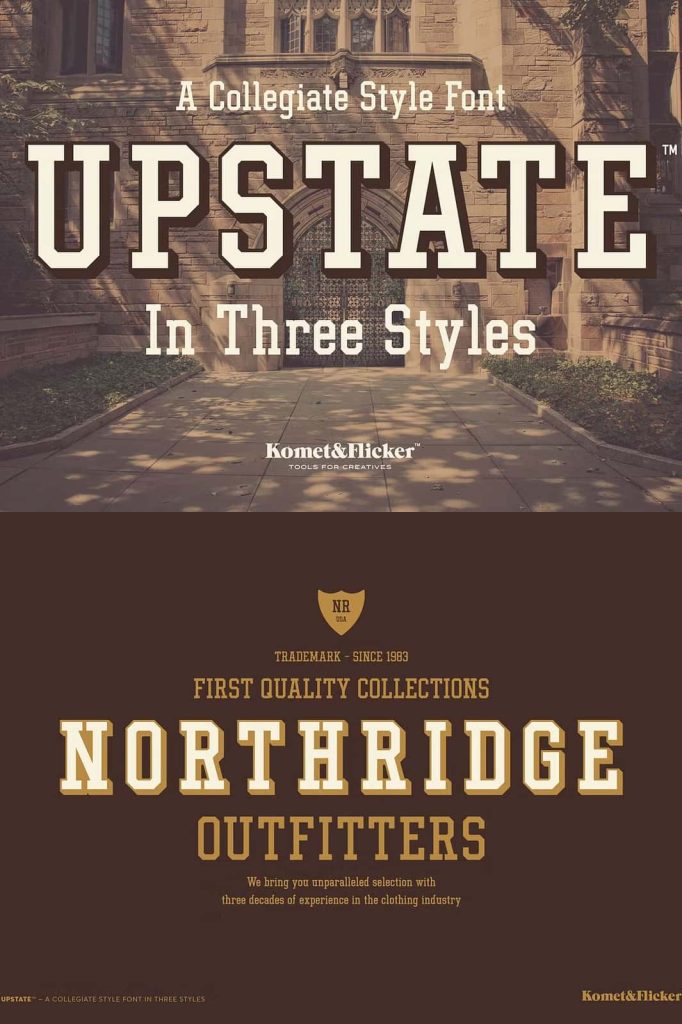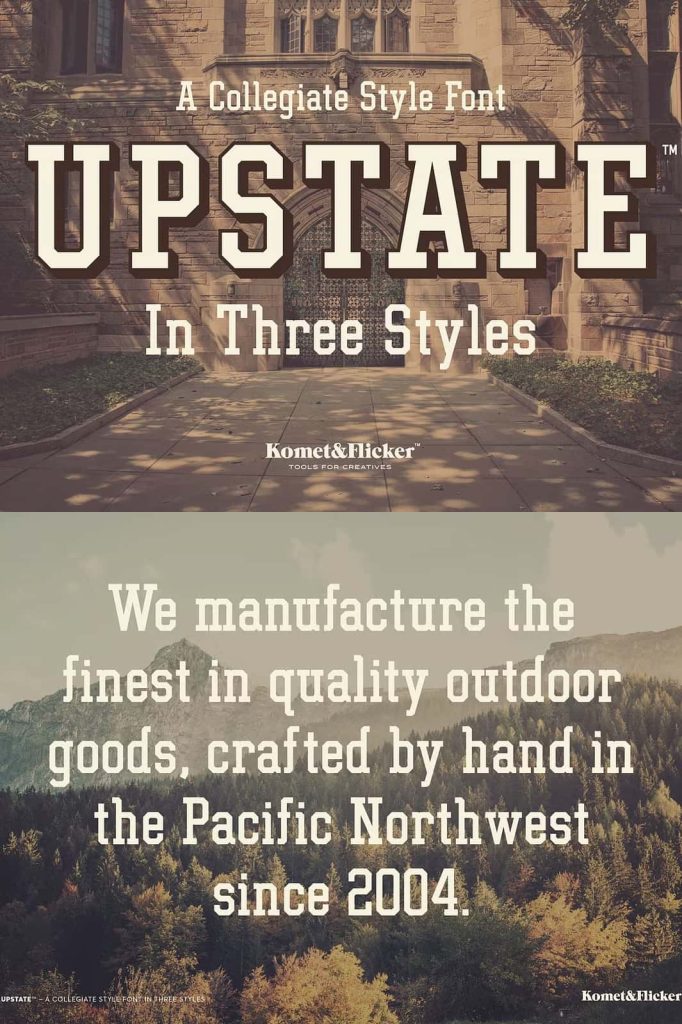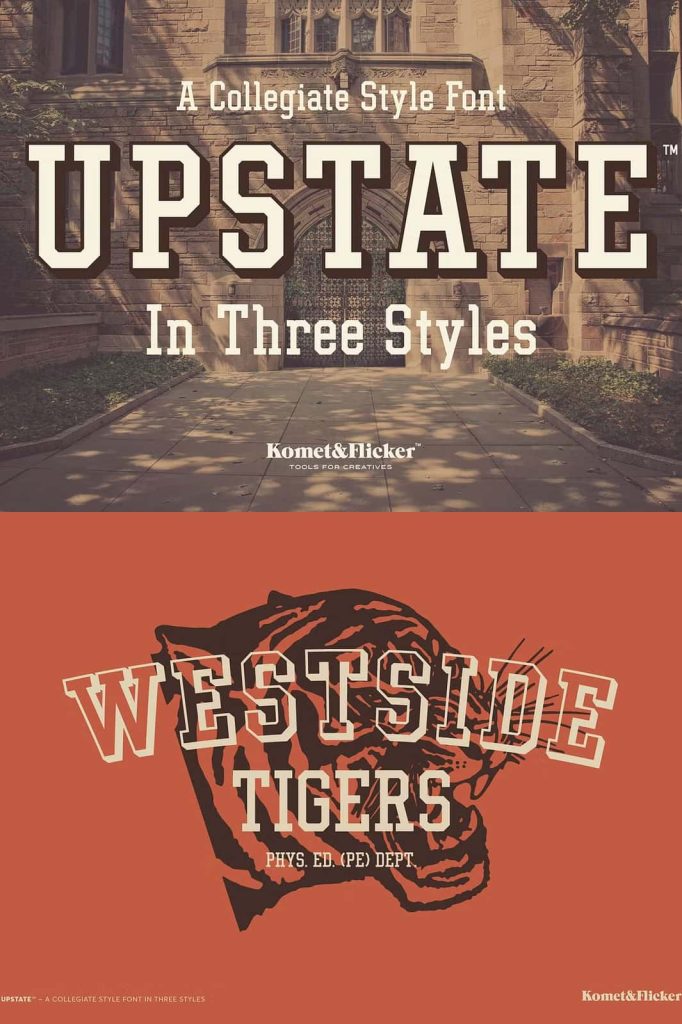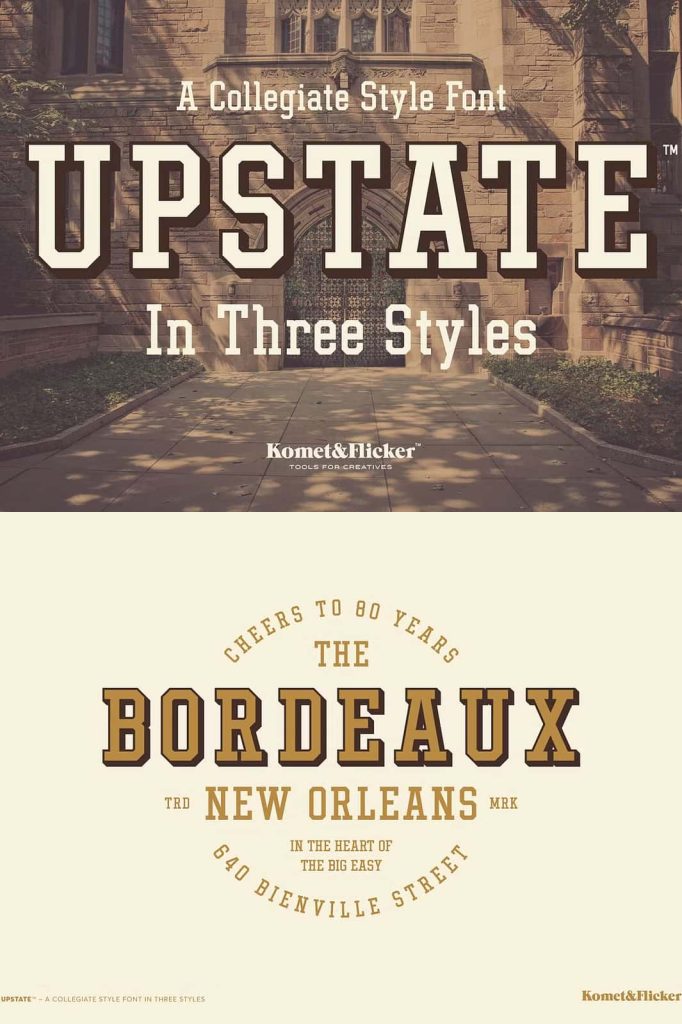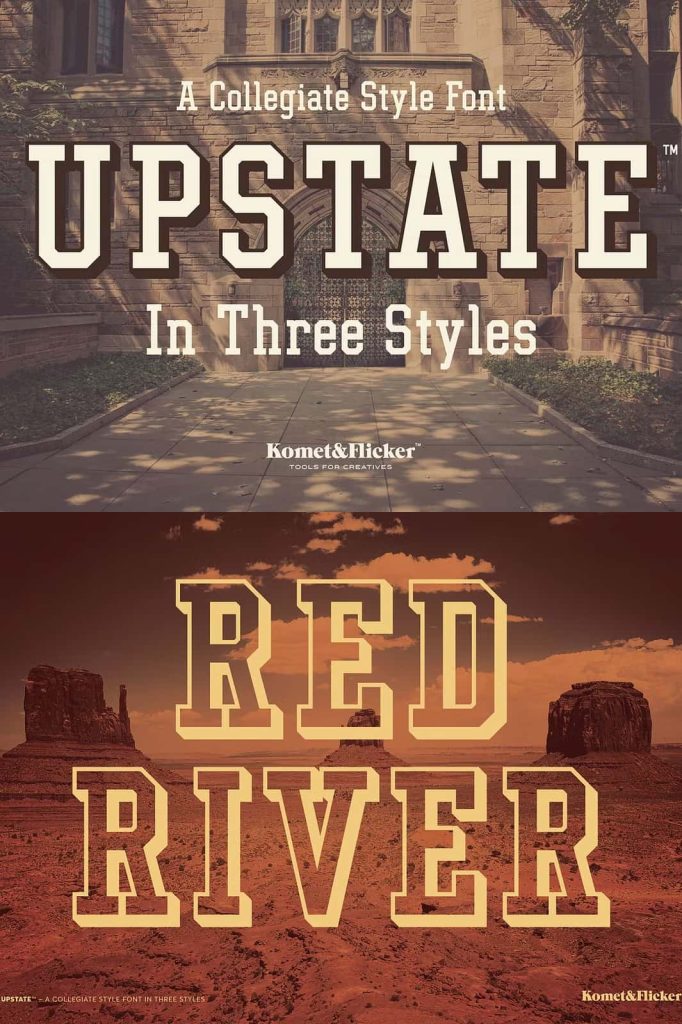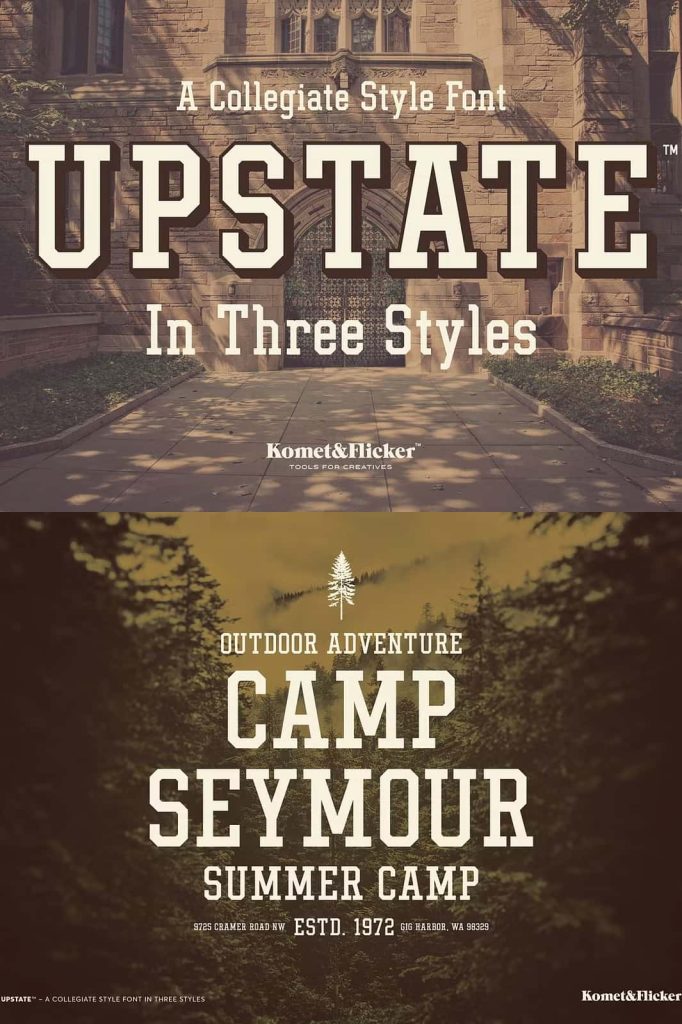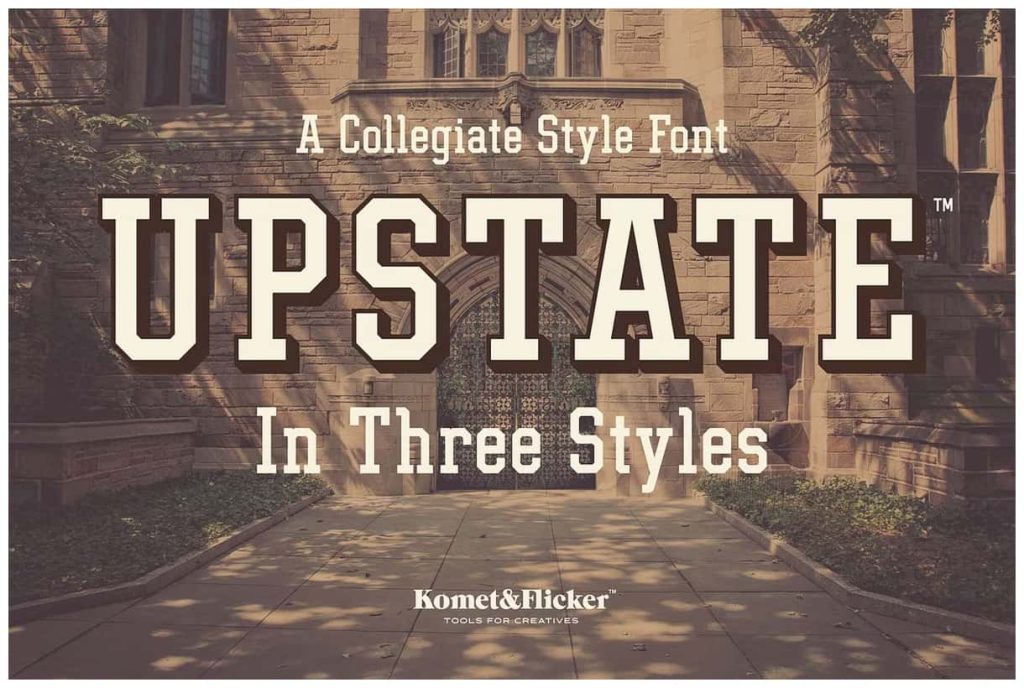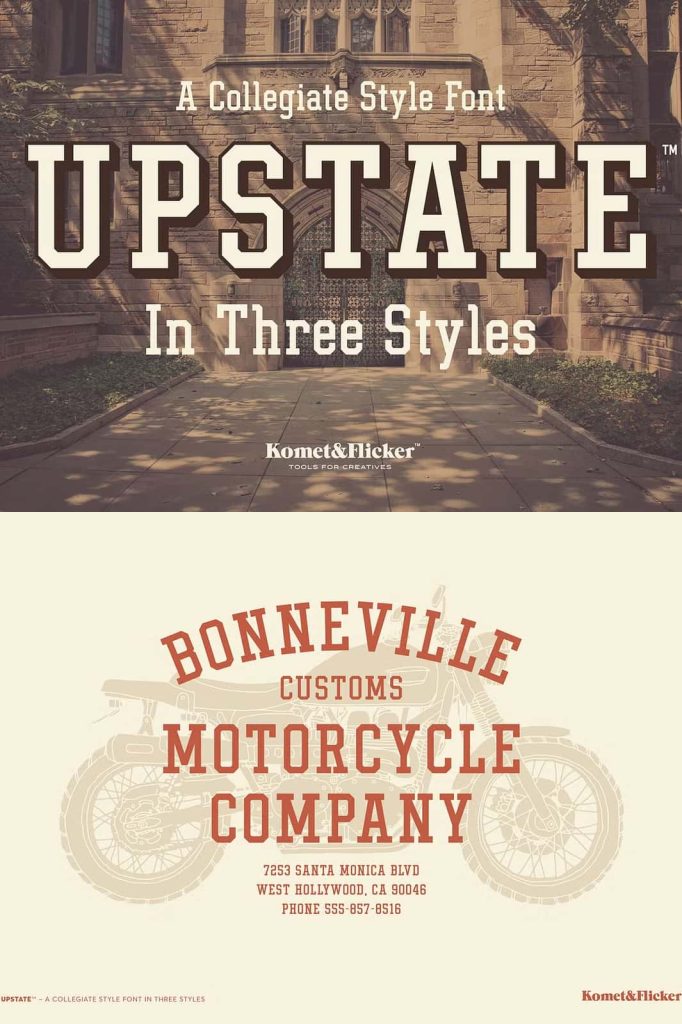
UPSTATE: A Vintage Style Slab Serif Font with Collegiate Elegance
UPSTATE is a vintage style slab serif font crafted to capture the timeless elegance and dynamic energy of traditional collegiate design. Drawing inspiration from prestigious ivy league prep schools, heritage athletic programs, and classic academic lettering, this font brings together the perfect blend of bold structure and refined character. Its handcrafted details and strong typographic presence allow designers to build meaningful visual impact across a wide range of creative projects.
Experience the Distinctive Charm of Collegiate Typography
Collegiate typography carries a unique sense of pride, determination, and sophistication. UPSTATE celebrates that legacy by combining sturdy slab serif shapes with subtle vintage influences. The result is a typeface that communicates authority, confidence, and tradition. Every letterform shows thoughtful construction, allowing UPSTATE to perform strongly in both large display settings and smaller text arrangements.
Whether you design posters, logos, apparel, banners, or editorial layouts, UPSTATE enriches your work with a classic academic attitude. It highlights the spirit of teamwork, achievement, and heritage, making it ideal for projects that require bold identity and historical charm.
Designed for Versatility and Creative Expression
UPSTATE offers more than just vintage aesthetics. Its structure supports a wide variety of applications, enabling designers to explore different creative approaches. Its slab serif details make each character stand firm, ensuring strong readability and visual clarity. This versatility makes UPSTATE just as effective in minimalist layouts as in expressive, retro-inspired compositions.
You can use UPSTATE for sports branding, university-style merchandise, editorial mastheads, retro posters, packaging projects, badges, labels, and digital assets. Its adaptability allows you to apply it on modern designs without losing the authentic charm that makes collegiate typography so iconic.
Why UPSTATE Enhances Your Visual Projects
UPSTATE communicates reliability, heritage, and boldness. Its slab serif features reflect craftsmanship and attention to detail. This makes it an excellent choice for designers who want to add a sense of history to their work without compromising on modern usability. Each character provides consistent structure, enabling balanced text blocks and striking headlines that capture attention instantly.
The font also carries subtle vintage textures that evoke old-school printing techniques. This gives your designs a warm, authentic feel reminiscent of academic uniforms, sports team banners, and campus publications. The vintage elements enhance storytelling, helping your audience connect emotionally with the themes of tradition, discipline, and excellence.
Bring Timeless Character Into Every Project
Every element of UPSTATE represents thoughtful craftsmanship. From its sturdy slab serifs to its balanced proportions, the font delivers a meaningful typographic experience. When you integrate UPSTATE into your branding or design workflow, you invite viewers into a world inspired by heritage, ambition, and the spirited atmosphere of collegiate culture. It transforms simple text into powerful visual statements, making your message stand strong and memorable.
Whether you want to build a vintage poster series, launch a sports-inspired brand identity, or elevate your editorial layouts, UPSTATE gives you the typographic tools to shape bold and compelling visuals. Its timeless appeal ensures long-lasting relevance and creativity, offering a reliable companion for both modern and classic design approaches.
UPSTATE is more than a slab serif font; it is a celebration of academic legacy, vintage craftsmanship, and bold visual expression. Its collegiate roots and refined aesthetic help you create engaging designs that carry both strength and personality. By using UPSTATE, you bring forward the nostalgia of ivy league tradition while presenting your work with contemporary clarity and purpose.